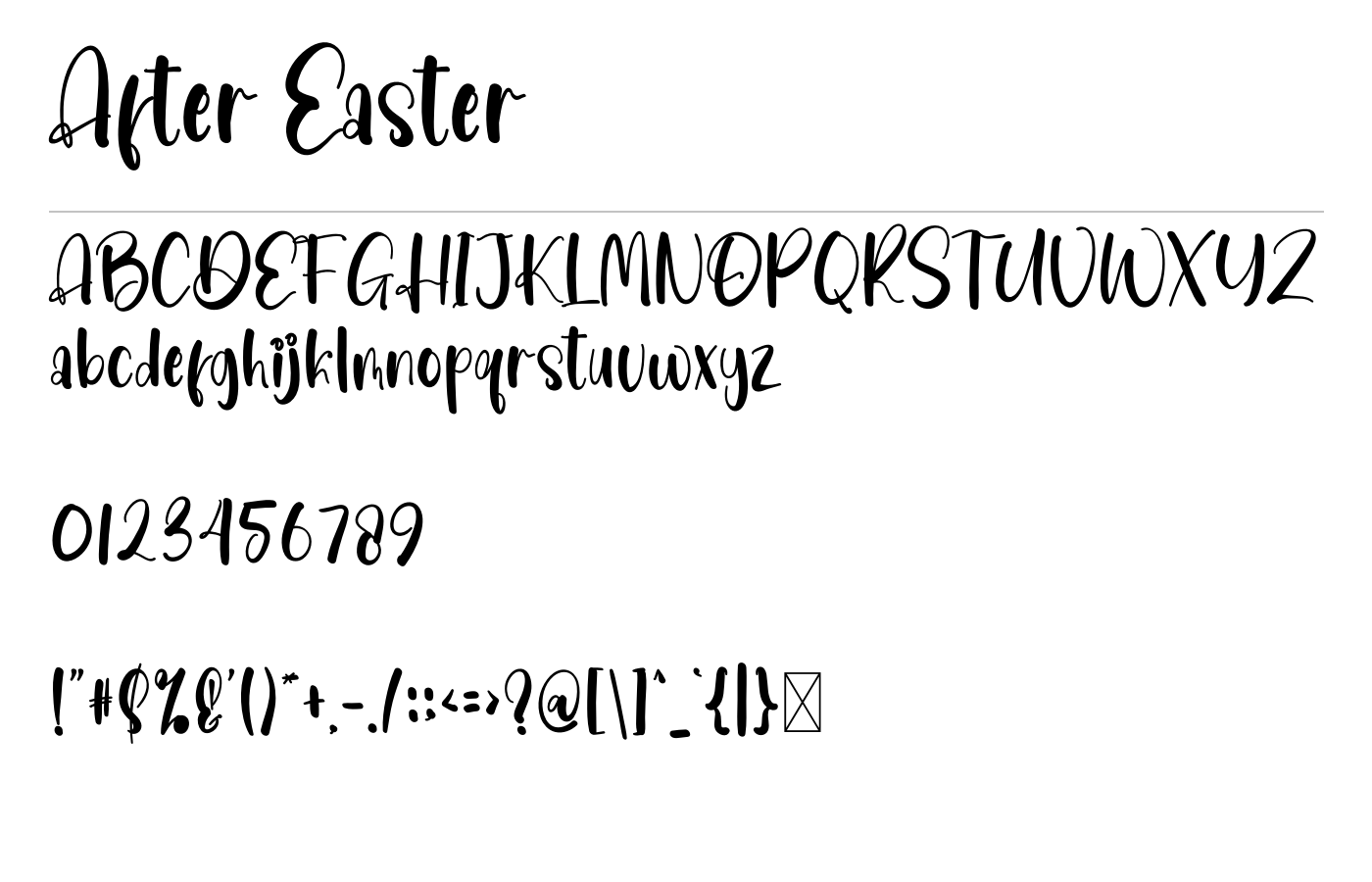
After Easter is a playful and charming handwritten script font with a casual, friendly feel. Its lively letterforms, varying stroke widths, and quirky loops make it perfect for creative projects, greeting cards, and branding that seeks a personal, approachable touch. This font shines in headlines and decorative uses where a warm, inviting personality is desired.
After Easter Font
About After Easter Font